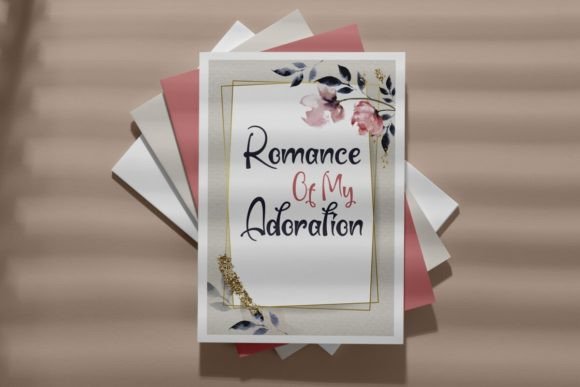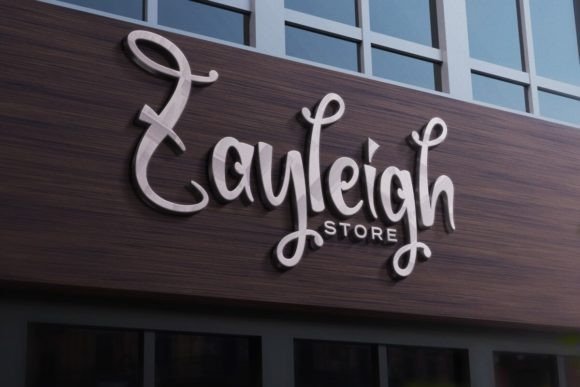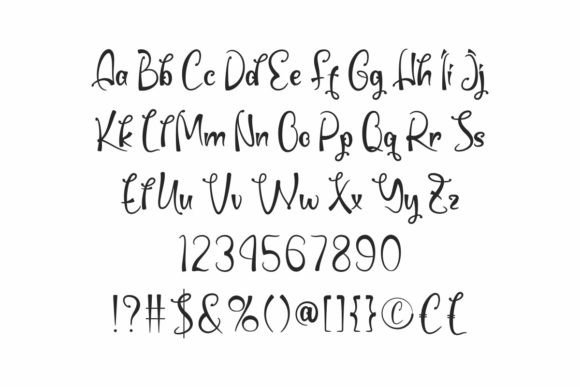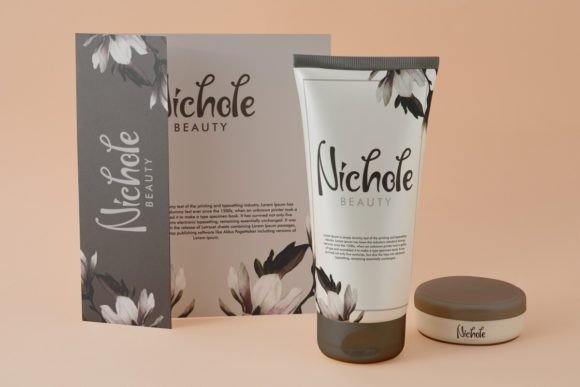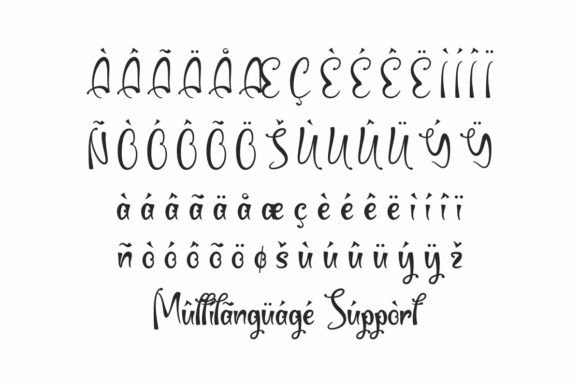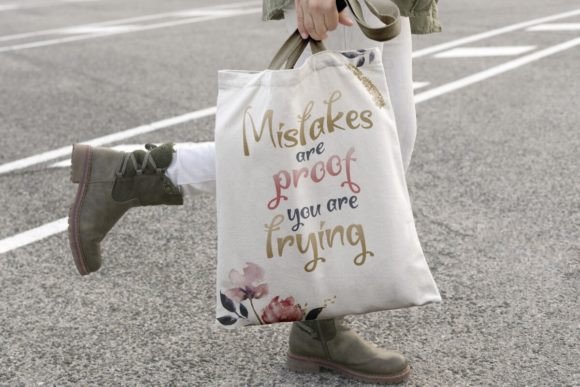
Introduction to Shaelyn Font
Have you ever stumbled upon a font that transports you to a whimsical world of magic and wonder? For designers, it’s not just about finding the right typography for a project, but about creating an emotional connection with the audience. One such enchanting font that can instantly lift your mood is the Shaelyn Font, a beautiful display font inspired by the delicate petals of magical plants and flowers.
What sets Shaelyn Font apart is its unique handwriting style, with characters that seem to dance across the page with playful, waving lines. Whether you’re working on a design project for a café, a fashion brand, or a spa salon, this font is sure to bring a touch of whimsy and sophistication to your work. With its high-quality design and transparent background, Shaelyn Font is the perfect resource for designers looking to add a creative twist to their projects.
Key Features of Shaelyn Font
- High-quality design resource with a transparent background, ideal for creative projects.
- Shaelyn Font is a high-resolution font, suitable for printing and digital use at 300 DPI.
- Unique and elegant design, perfect for adding a touch of sophistication to any creative project.
- Shaelyn Font is a versatile font, suitable for use in a variety of applications, including logos, branding, and typography.
Honest Review: Shaelyn Font
As a designer, I’m always on the lookout for high-quality design resources to elevate my creative projects. Recently, I had the chance to try out the Shaelyn Font, and I’m excited to share my honest review with you.
- ✨ Beautiful, elegant script font that’s perfect for wedding invitations, birthday cards, and other special occasions.
- ✨ Comes with a transparent background, making it easy to use in various design applications.
- ✨ High-quality font that’s well-suited for print and digital projects.
- ⚠️ Limited character set, which may be a concern for designers who need to use the font for extended text.
- ⚠️ Not as versatile as some other fonts, which may limit its use in certain design contexts.
Overall, I’m impressed with the Shaelyn Font’s beauty and quality. While it may not be the perfect font for every project, it’s definitely a valuable addition to any designer’s toolkit. If you’re looking for a high-quality, elegant script font, I’d definitely recommend giving the Shaelyn Font a try.
Tips for Getting the Most Out of Shaelyn Font
Use the Shaelyn Font on a transparent background to create a modern and sleek design. You can also experiment with different font styles and combinations to add depth and visual interest to your design.
The Shaelyn Font is ideal for various creative projects, including logos, business cards, social media graphics, presentations, and documents. It’s also a great resource for designers who want to create a high-quality design resource with a transparent background.